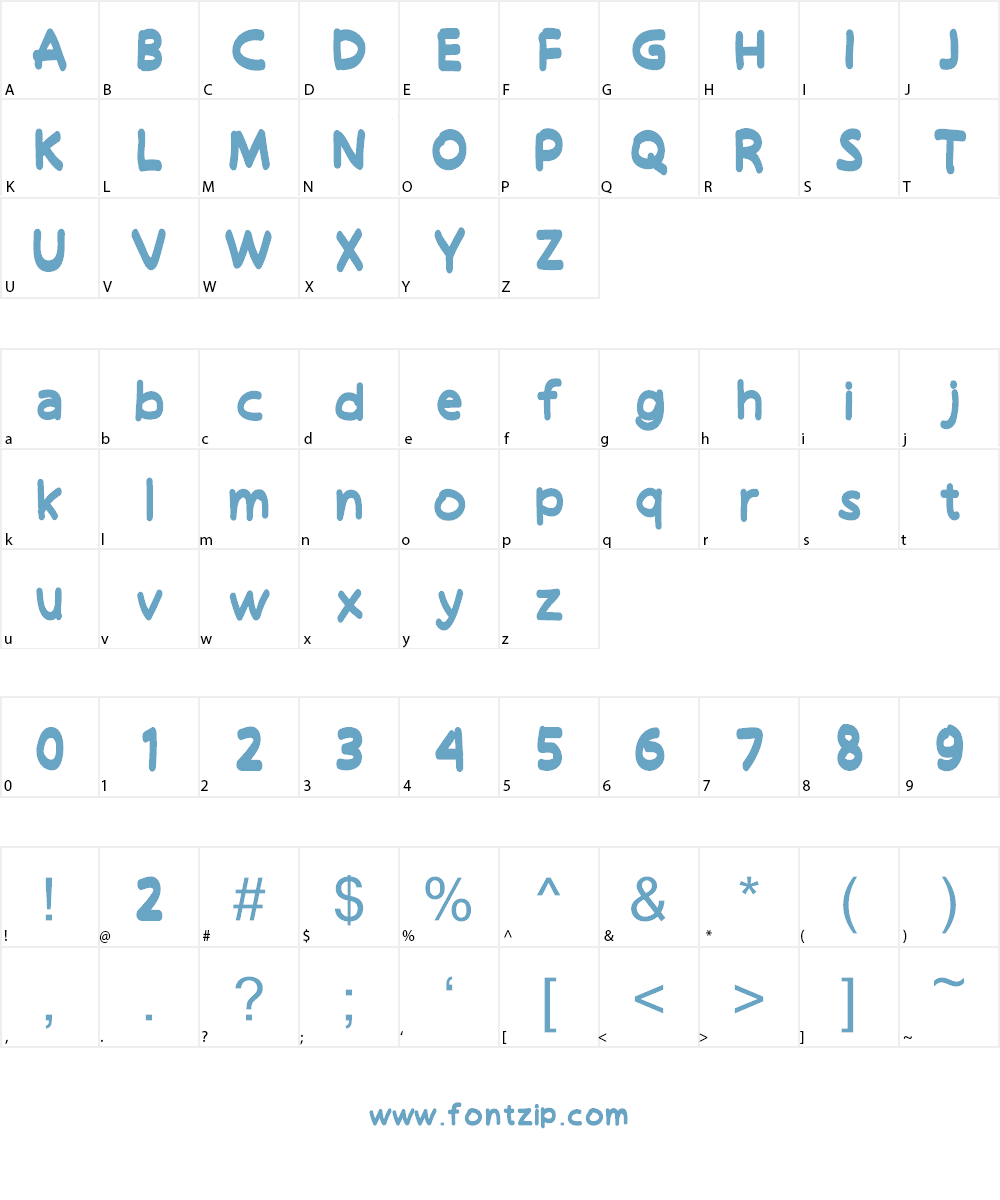
Funblob - display font created with natural hand scratches that carry the theme fun and relaxed
Funblob will be perfect for posters, t-shirts, book covers, packaging, quots and all designs that require a soft element of fun and remain clear in conveying their meaning